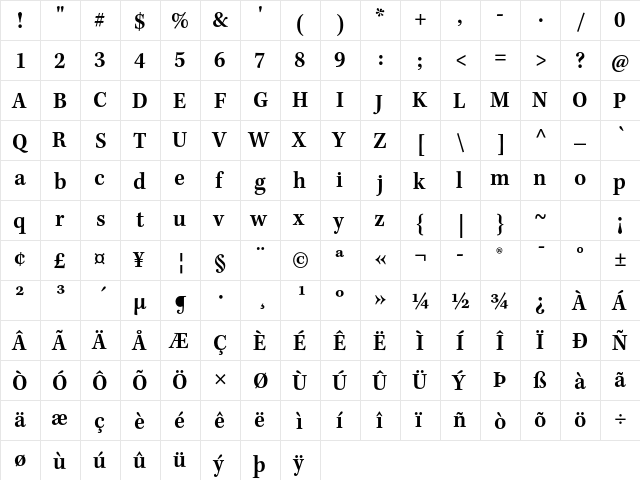
Kepler Std Semibold Semicondensed Caption
| Designer | Robert Slimbach |
Design Context for Kepler Std Typeface
Kepler Std is a composed and adaptable typeface that performs quietly and consistently across a wide range of design contexts. Its bold stroke weight gives it real presence on the page. The condensed width makes it efficient for tight spaces without sacrificing legibility.